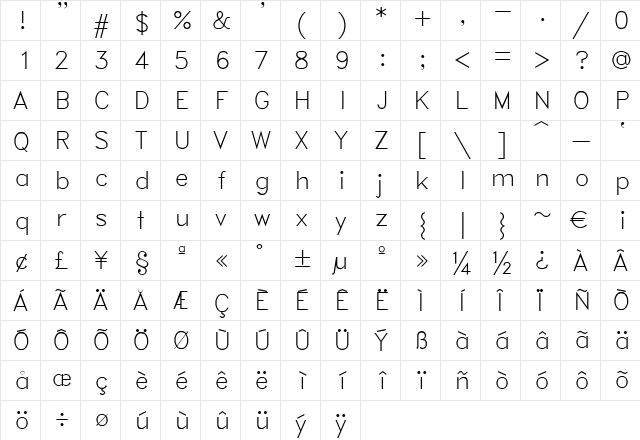
RomanD Regular
Design Context for RomanD Typeface
RomanD is a composed and adaptable typeface that performs quietly and consistently across a wide range of design contexts.